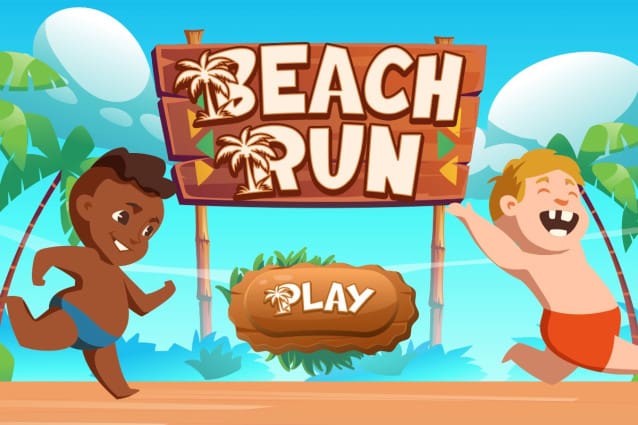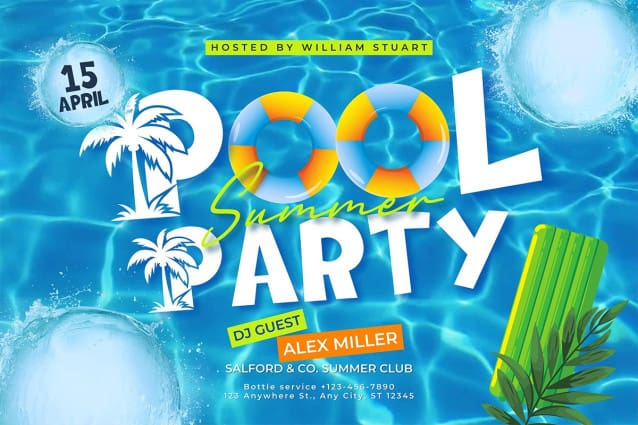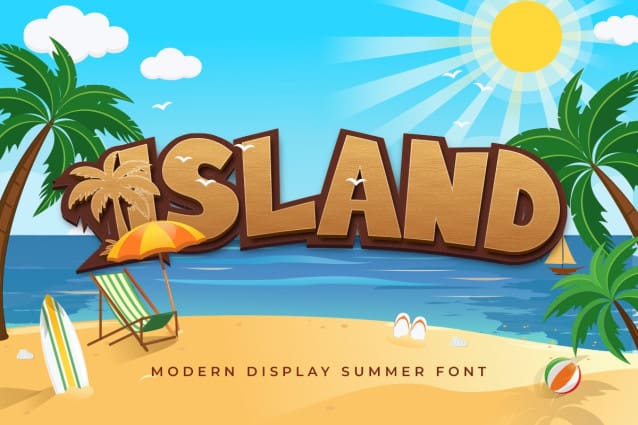
Island Display Font
Island Display Font, our fun and decorative font designed for fun holiday logos and fonts. Island Display – Modern Decorative Font created with simple and modern shapes. Island Display modern is our lightweight typeface that embodies fun and colorful characters. This font works well both digitally and in print.
This typeface has several characteristics that we can see carefully in its simple shape, and there is a tree ornament in the font. These cute shapes are made to look modern, colorful, and fun. This typeface is the best font to use as a brand name or trade item. Anything related to fashion and leisure items, such as T-shirts and holiday gear, pairs well with this font. The font size can be adjusted according to the items included. This font will be suitable for printing in medium font size.
In addition to the uses mentioned above, the Island Display – Modern Decorative font can use for event posters with a cheerful and colorful theme. This font can use as tickets, banners, and stickers. The unique font design will also attract the attention of readers who see this poster scattered in various places so that they are interested in reading more about the poster content.